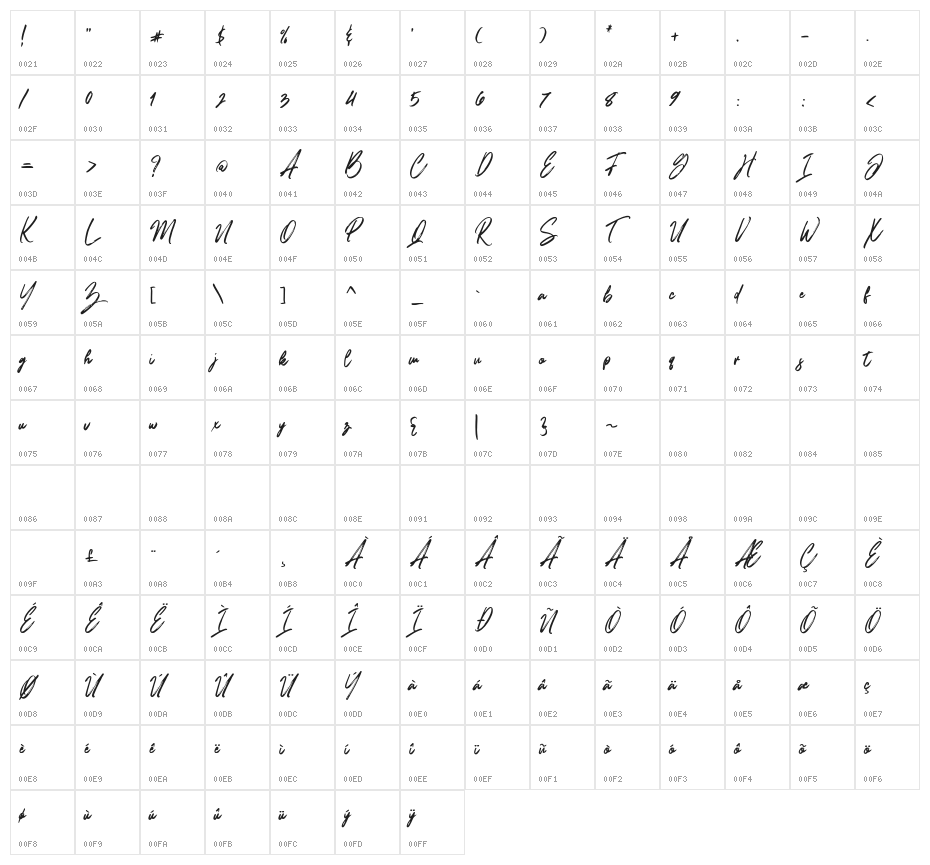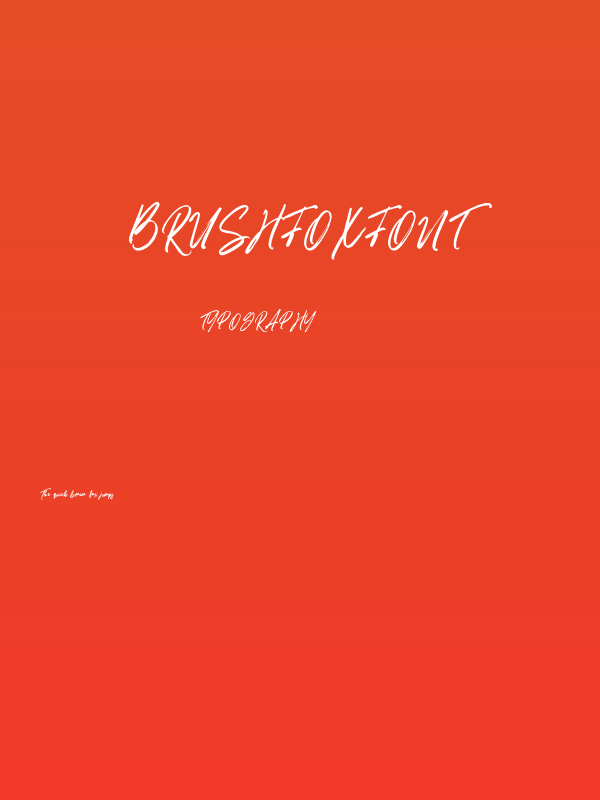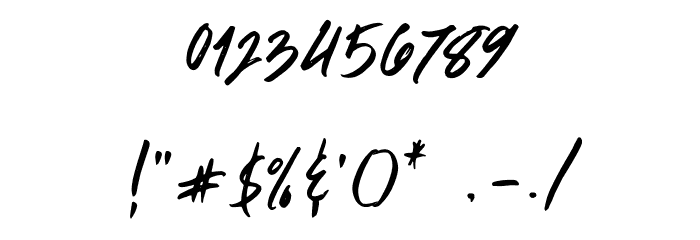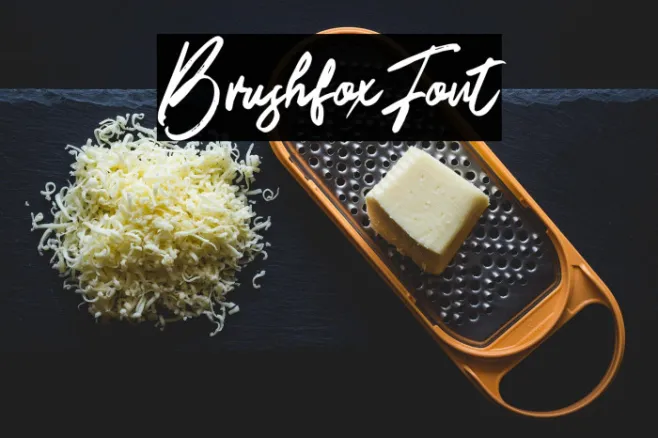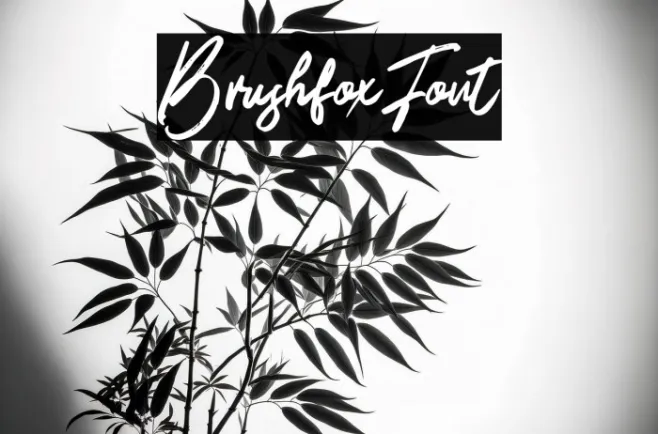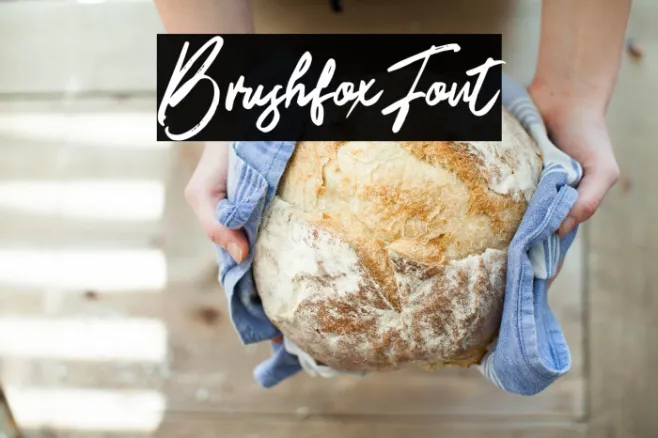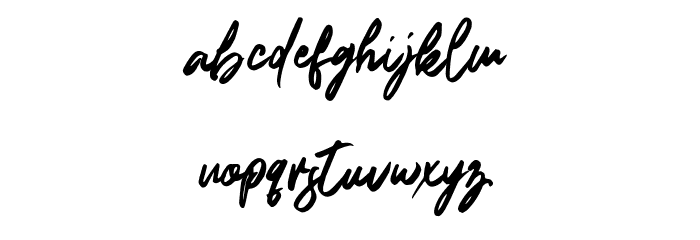
BrushfoxFont Font
BrushfoxFont Description
This font exudes a dynamic and energetic style, characterized by its brush-like strokes that give it a handwritten appearance. The uppercase and lowercase letters flow seamlessly, creating a sense of movement and fluidity. The strokes vary in thickness, adding a natural and organic feel to the text. Numbers and special characters maintain the same lively aesthetic, ensuring consistency across all elements. The overall impression is one of creativity and expressiveness, making it ideal for projects that require a personal touch.
| Proposed Projects | Ideal for branding, invitations, greeting cards, and artistic projects that require a personal and creative touch. |